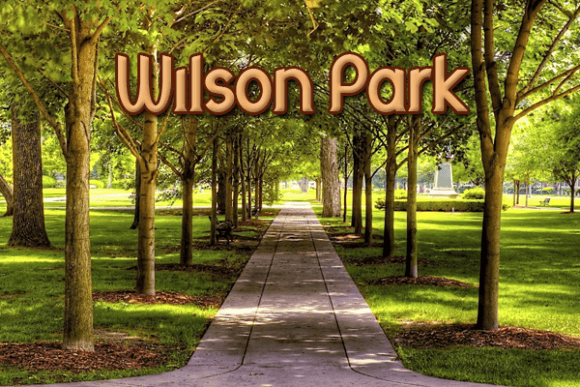
Introduction to Otrebla Font
As you sit in front of your computer, staring at a blank canvas, waiting for inspiration to strike, have you ever wished you had the perfect font to elevate your creative project? The right font can make all the difference in bringing your vision to life. And that’s exactly what the Otrebla Font is designed to do – add a touch of elegance and sophistication to your work.
Whether you’re a seasoned designer or a beginner looking for a reliable design resource, the Otrebla Font is an excellent choice. Its bold yet refined style makes it perfect for a wide range of applications, from wedding invitations to social media posts. And the best part? It’s available for free download, allowing you to explore its full potential without any limitations.
With its high-quality design and transparent background, the Otrebla Font is a valuable asset for any designer looking to take their work to the next level. So why settle for an ordinary font when you can have a masterpiece like Otrebla Font to make your creative projects truly shine?
Key Features of Otrebla Font
- High-quality design resource with a unique and creative touch suitable for various projects.
- Perfect for creative projects such as logo design, branding, and typography-based artwork.
Honest Review: Otrebla Font
As a designer, I’m always on the lookout for unique and high-quality design resources to elevate my creative projects. I recently stumbled upon the Otrebla Font, and I’m excited to share my thoughts on this font.
What works well: ✨ The Otrebla Font has a beautiful, modern design that is perfect for a variety of creative projects, from branding to digital art. The font is highly customizable, allowing you to easily adjust the size, color, and style to suit your needs. The transparent background feature is also a bonus, making it easy to layer with other design elements.
- Customizable
Limitations: ⚠️ While the Otrebla Font is generally high-quality, I did find that it can be a bit tricky to use in certain situations. The font is not as versatile as some other options, and it may not be suitable for projects that require a lot of bold or italic text.
Overall, I’m impressed with the Otrebla Font, and I would definitely recommend it to designers who are looking for a unique and high-quality design resource. While it may have some limitations, the benefits far outweigh the drawbacks.
Tips for Getting the Most Out of Otrebla Font
For optimal results, use Otrebla Font with a transparent background to create a clean and modern design. Experiment with different font sizes, colors, and arrangements to add visual interest to your project.
Common Use Cases for Otrebla Font
Otrebla Font is ideal for creative projects, such as graphic design, digital art, and typography. You can also use it to create engaging social media graphics, logos, and branding materials.